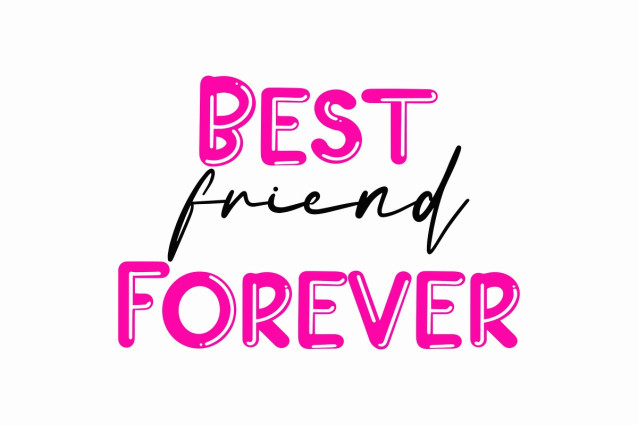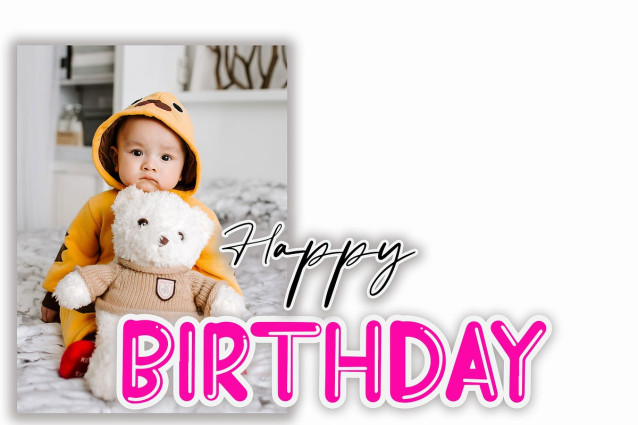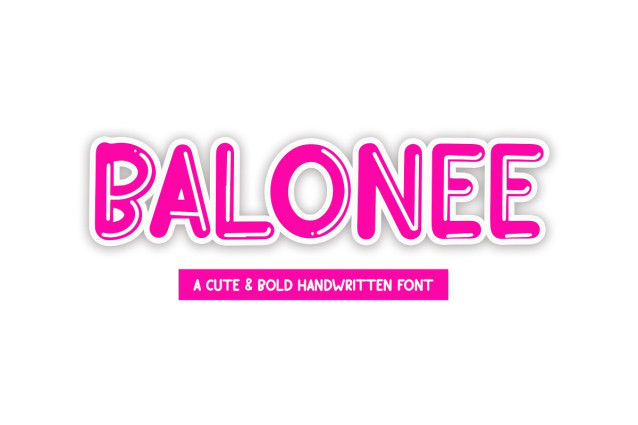
Balonee Bubble Font
Balonee Bubble Font is an adorable handwriting font with a cute and whimsical style, perfect for bringing a fun and unique touch to your creative projects. Each character is carefully crafted with distinct shapes, adding charm and personality to your designs. Whether for branding, packaging, or social media, BALONEE will make your product visually captivating and memorable.